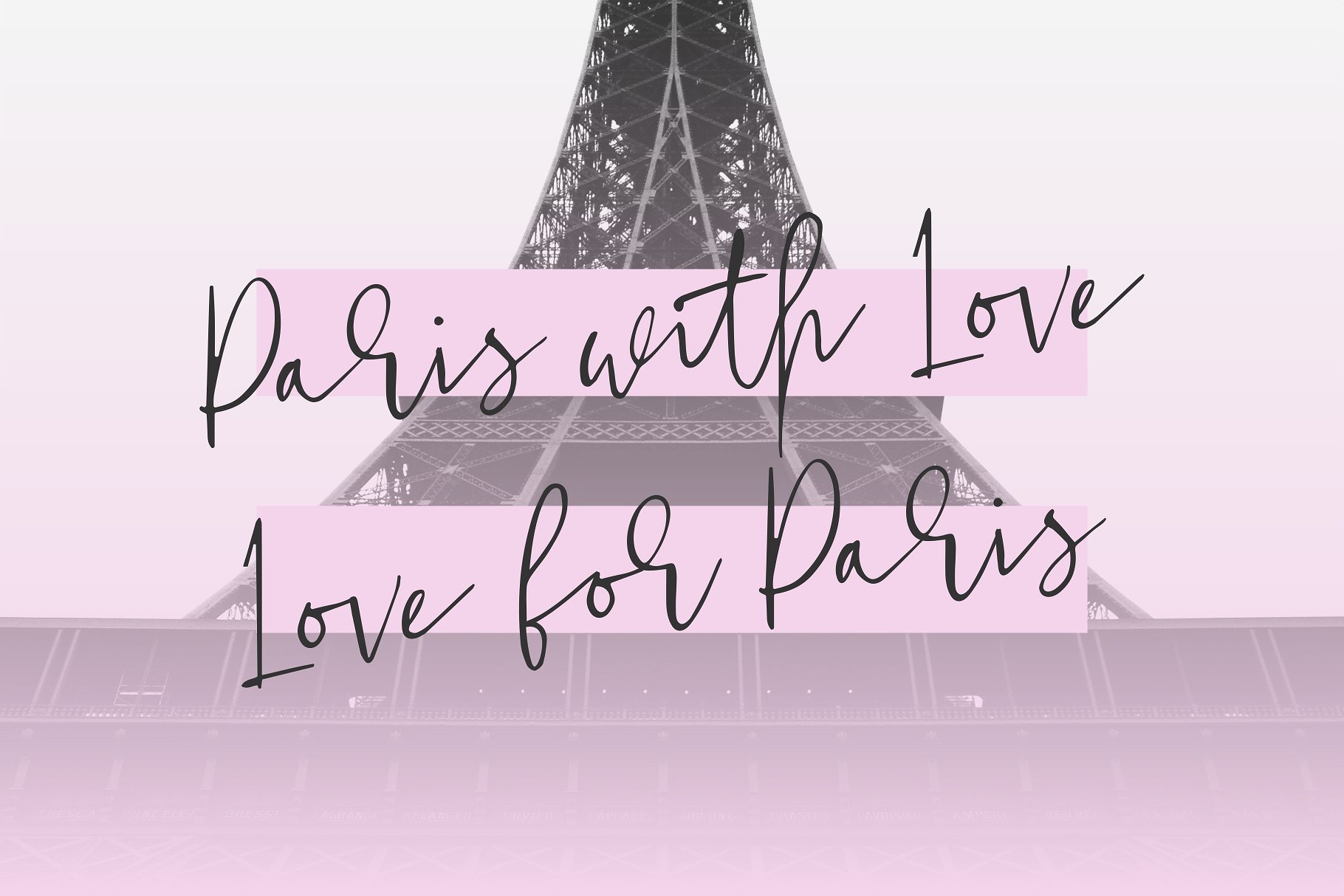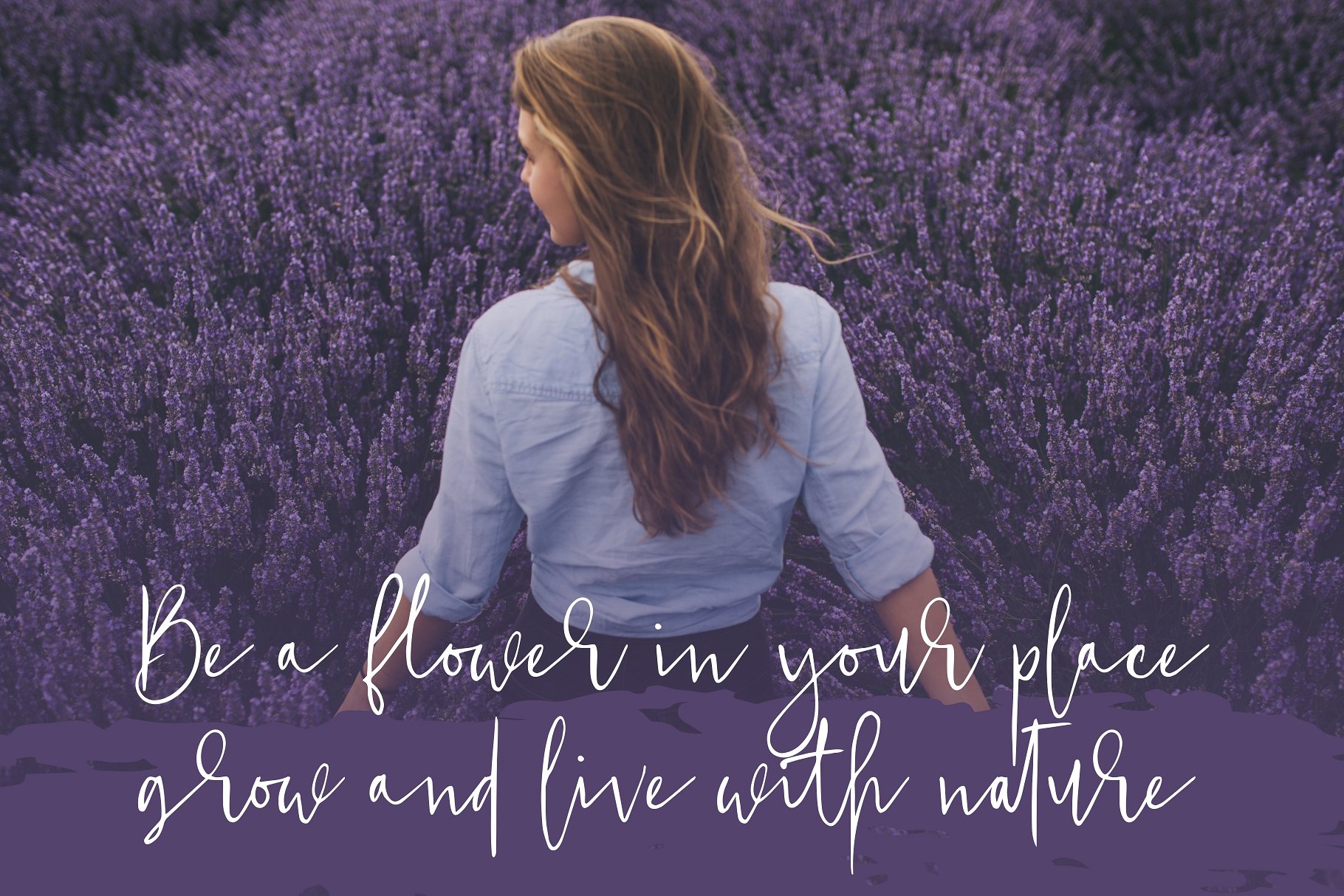
Pretty Good Font Duo
Pretty Good is a romantic and chic duo font (handwritten and display). It be perfect for creating product designs, quotes, brands, crafting, birthday invitations, wedding or just adding a handwritten touch to any projects!
Designer Name: | CalligraphyFonts.net |